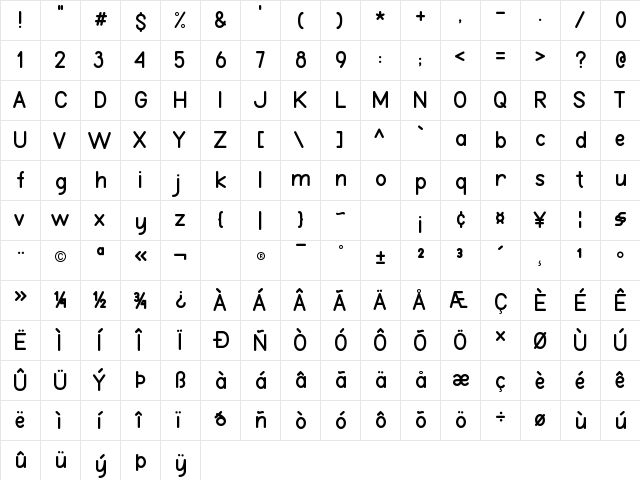
Burd Sans ExtraBold Regular
| Foundry | AndriyFM |
| Designer | Andri Firmansyah |
Design Context for Burd Sans ExtraBold Typeface
Burd Sans ExtraBold offers clean, dependable letterforms without strong stylistic allegiance, making it a practical choice for designers who need flexibility. The heavy weight commands attention and anchors typographic hierarchies.